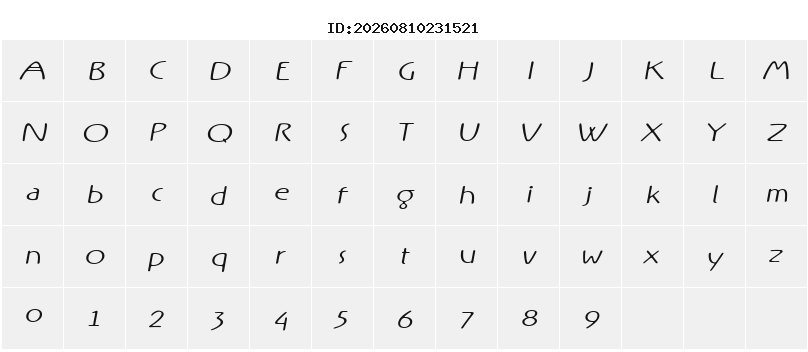
• Font Name: Rx-OneFive
Rx-OneFive.ttf is a modern, elegant sans-serif font designed for ultimate readability and visual harmony. Perfect for branding, headlines, web design, and print materials.